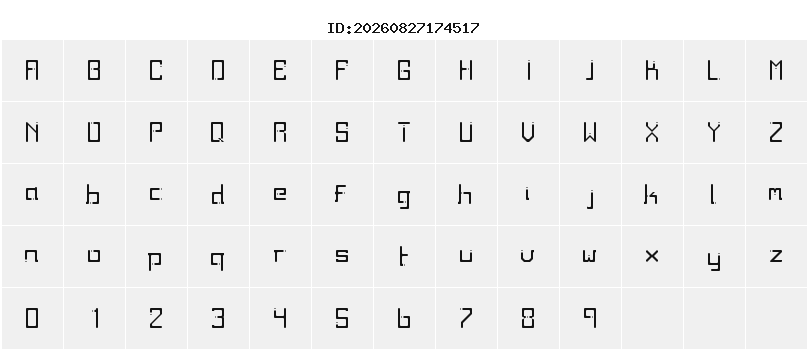
• Font Name: twodays
• Designer: zen_killa
• Description: This font was created using FontStruct (http://fontstruct.fontshop.com)
About twodays.ttf
twodays.ttf is a modern, elegant sans-serif font designed for ultimate readability and visual harmony. Perfect for branding, headlines, web design, and print materials.